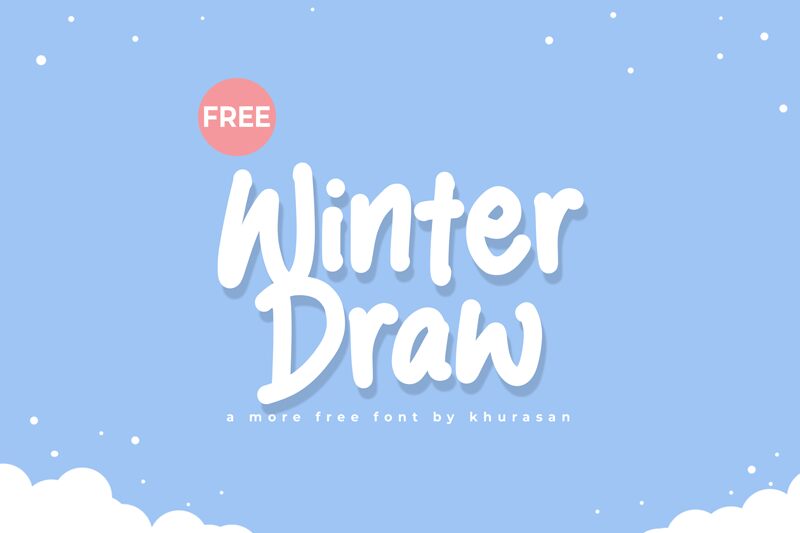
Winter Draw
Winter Draw font by Khurasan is a free cartoon display typeface that feels like it’s been brushed onto the page with thick, inky strokes. Rounded forms, soft curves, and bouncy letter shapes give it a cozy, storybook charm—like a handwritten note on a frosted window. The rhythm is casual but readable, with bold, inky weight that stands out even on busy, colorful backgrounds.
Using Winter Draw, you can bring warmth and playfulness to kids’ book covers, holiday cards, YouTube thumbnails, snack packaging, classroom posters, and crafty printables. This free font shines at larger sizes where its chunky strokes and friendly personality can really show. Pair it with a simple, clean sans-serif for body text to keep your layouts clear while Winter Draw handles the big, welcoming headlines.